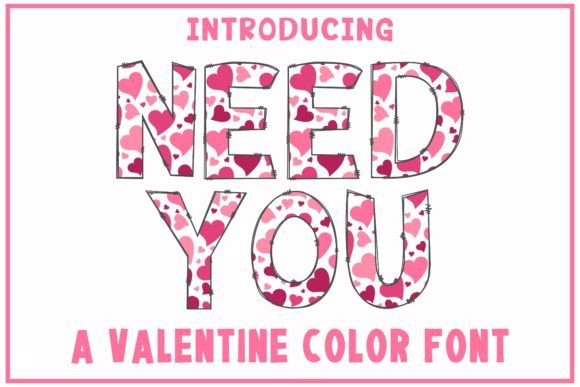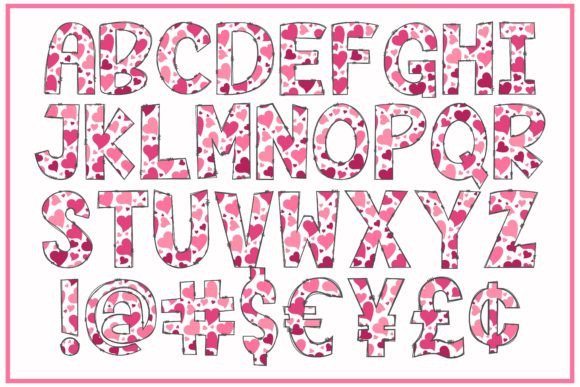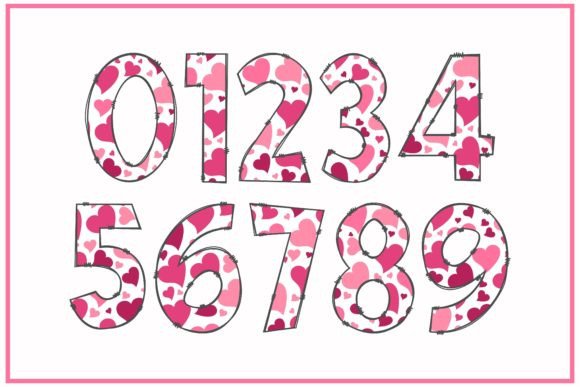
Need You Font
About Need You Font
Need You is a captivating and innovative color font that brings a mix of creativity, playfulness, and whimsy to your designs. With its complex and unique lettering style and a vibrant red/pink color palette, this font is perfect for a wide range of creative projects.
The versatility of Need You allows it to be a great choice for various design applications. Whether you’re working on digital artwork, custom prints, social media graphics, or any other creative endeavor, this font will add a touch of uniqueness and visual interest.
Let your creativity flow and explore the possibilities with Need You. Experiment with different design projects, typography compositions, branding elements, and more. The distinct style and vibrant colors of this font will make your designs stand out and leave a lasting impression.
Embrace the complexity and coolness of Need You, and let it elevate your creations to new levels of artistic expression. Enjoy the process of designing with this captivating color font and bring your visions to life in a truly unique and remarkable way.